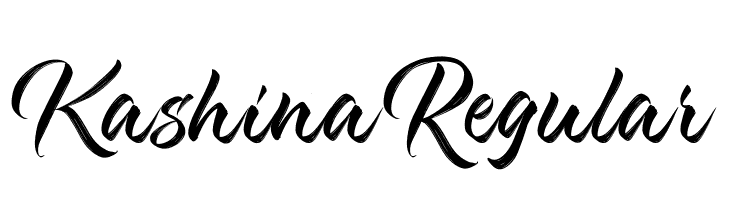
A flowing, elegant script font with classic and modern elements.
A bold, flowing script font with a playful and energetic style.
A dynamic and expressive script font with fluid, cursive strokes and elegant flourishes.
A playful, handwritten font with tall, slender letterforms and dynamic strokes.